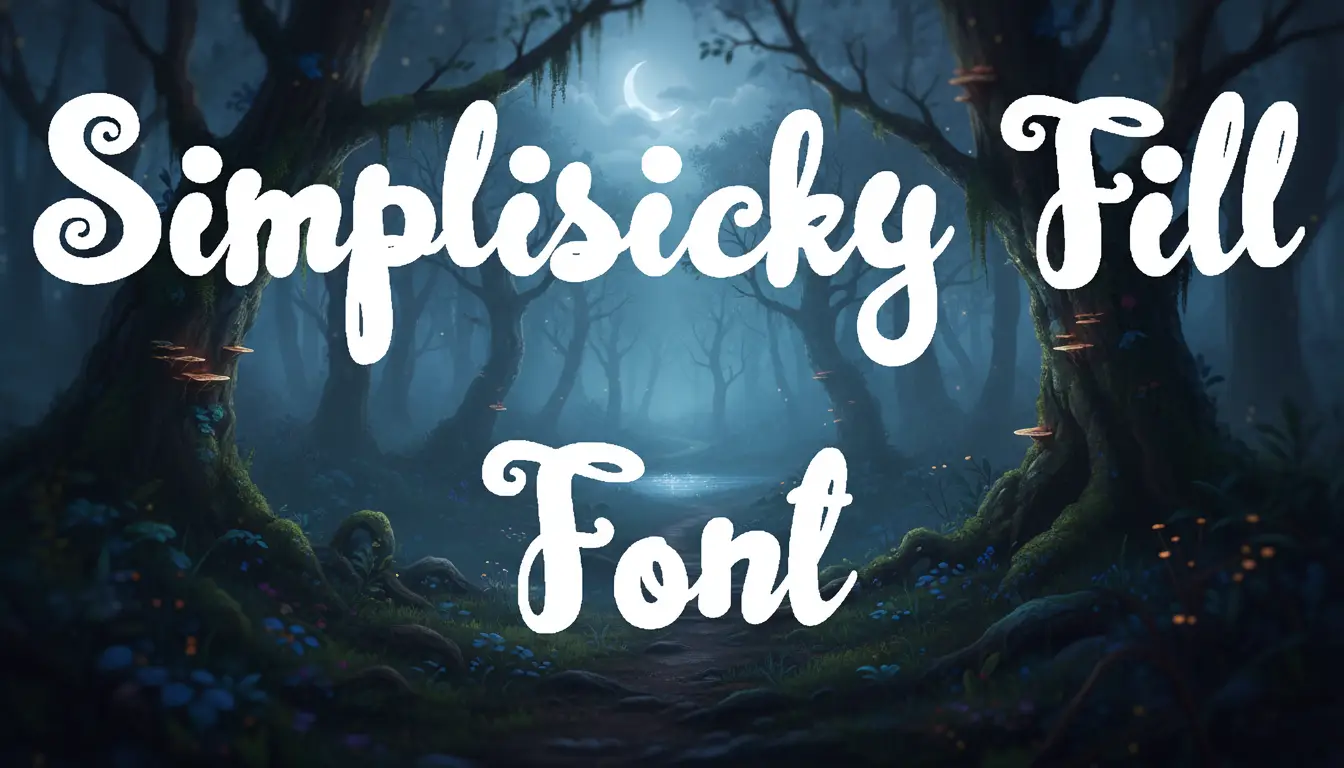
Simplisicky Font
Simplisicky
Simplisicky is a fancy font made by darwinoo. It's a decorative display font with plenty of personality, made to grab attention. It's a free download, and you can try it with your own text in the preview above first.
- Designer: darwinoo
- Glyphs: 453
What You Can Type With Simplisicky
With complete upper and lowercase letters and all ten digits, Simplisicky is ready for real wording, not just a single headline. Common punctuation such as &, !, ? and @ is included as well. It also has the accented letters you need for Spanish, French, German, Portuguese and Italian.
Where Simplisicky Works Best
Simplisicky is a natural fit for posters, logos and eye-catching headlines. Use it for one standout word or headline and let simpler fonts handle the rest.
Does Simplisicky support accented letters?
Yes. Simplisicky includes the accented letters needed for Spanish, French, German, Portuguese and Italian, so it works for more than just English.